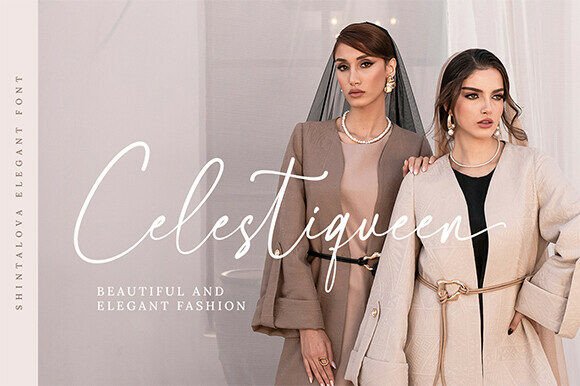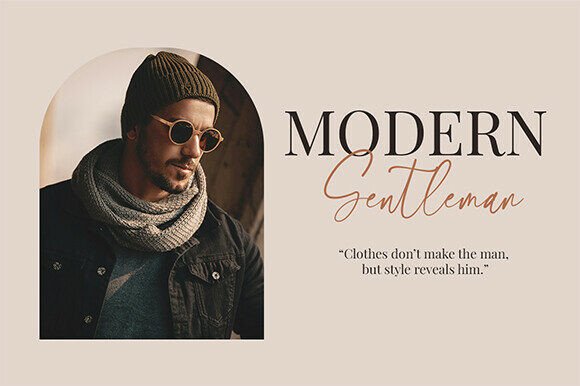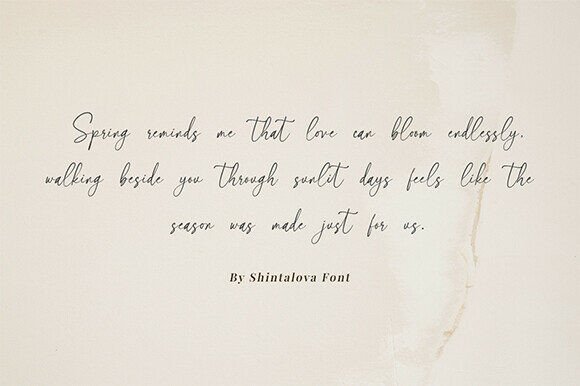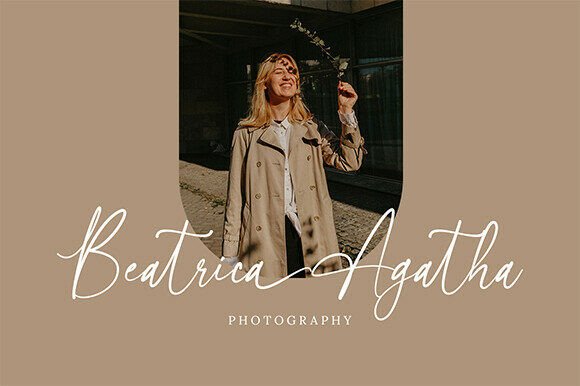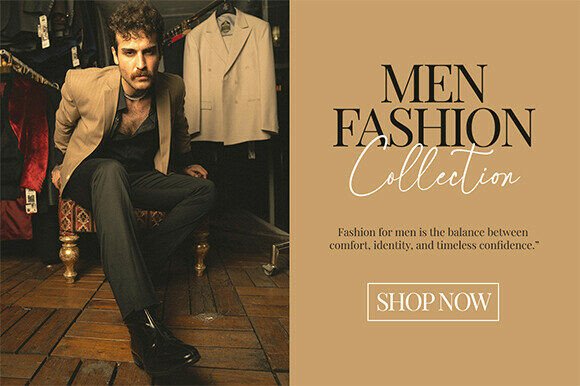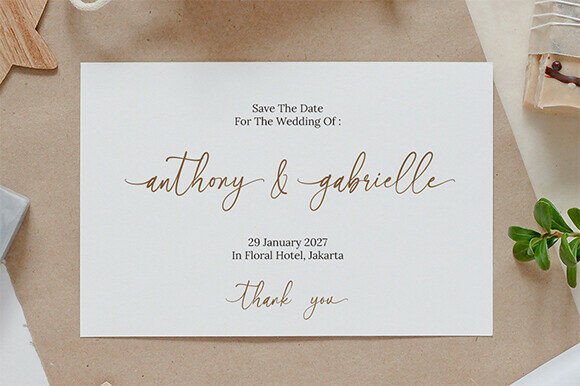
Introduction to Shintalova Font
Shintalova is an elegant script font designed to deliver a refined, luxurious, and timeless look.
Featuring smooth curves and graceful strokes, this font blends modern sophistication with classic script charm, making it perfect for high-end and stylish design projects .
Key Features of Shintalova Font
Why Choose Shintalova Font?